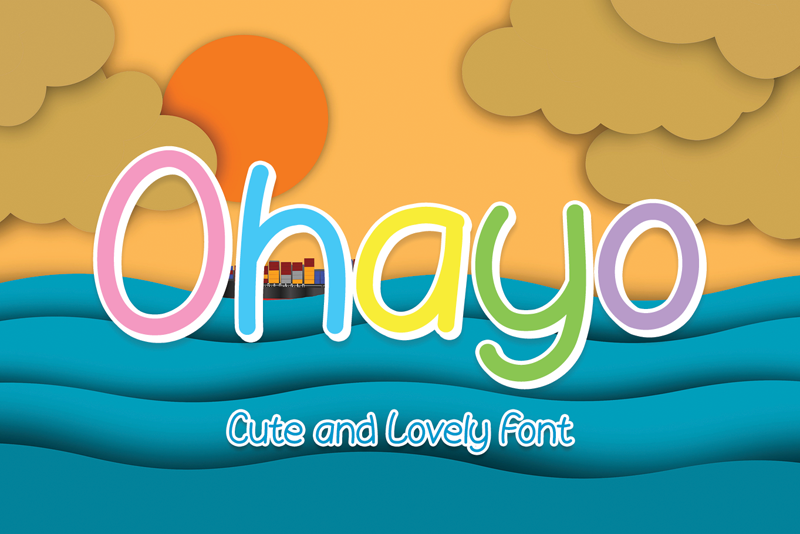
Font name: | Ohayo |
Author: | Luluk Surotul |
Ohayo is a sweet, simple lettered and adaptable handwritten font. Its cute and full of life style makes this font a wonderful choice for brightening up your designs. Attention : Ohayo handwriting Font is prohibited to use this font for commercial purposes or for profit without the permission of the author/admin, without being known to use this font without permission, will be subject to sanctions 5x the specified price. This font is used only for demos (Demo license) If you want to use this font for commercial use please contact email: elllulukstudio123@gmail.com or click the link below: https://www.creativefabrica.com/product/ohayo-2/ref/761303/ If you want to see more other fonts, please click: https://www.creativefabrica.com/designer/el_hotcig/ref/761303/ Any donations are very appreciated. Paypal account for donation: https://www.paypal.com/paypalme/luluk783 thanks. |